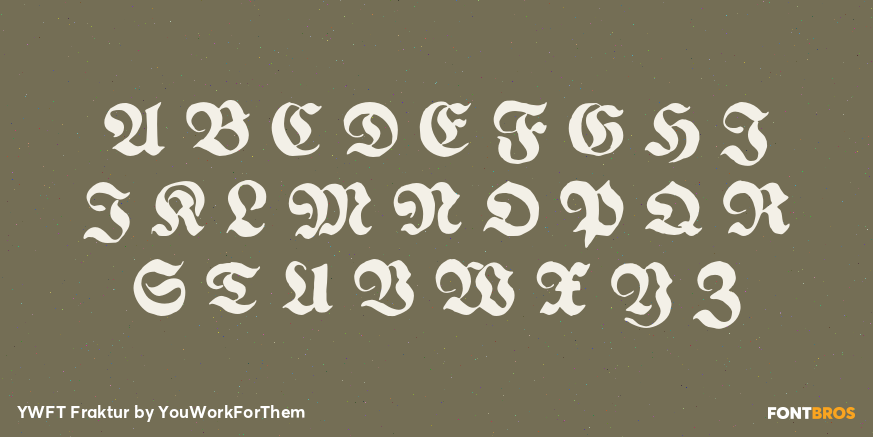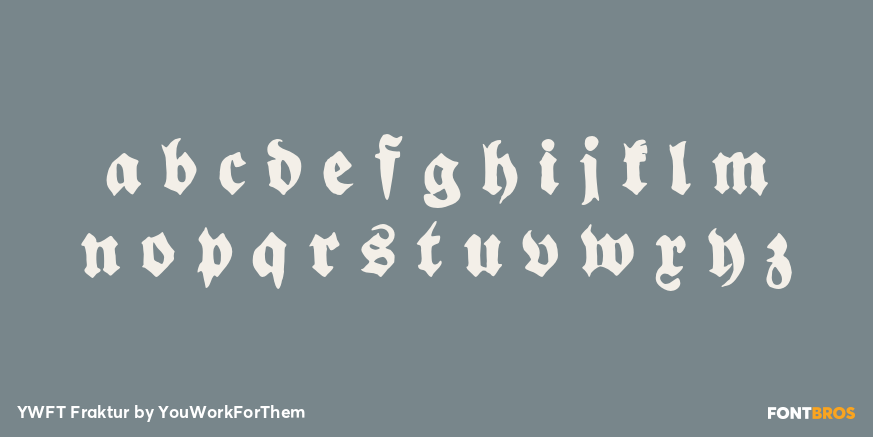
YWFT Fraktur
Font Family by YouWorkForThem
Down go the house lights, and with an explosion of fire, the brutal assault of YWFT Fraktur washes over the congregation at sonic pressure levels that rattle teeth and break glass. This is the power of the deadlest elegance this side of Modern Metal Bride Monthly, the ornamental terror that brings your wedding invitation to a point with crushing blast beats from monogram embossed kick drums. Intricacy and symbolism run deep, inviting a closer look. Denim and leathers, chains that clang! Fraktur